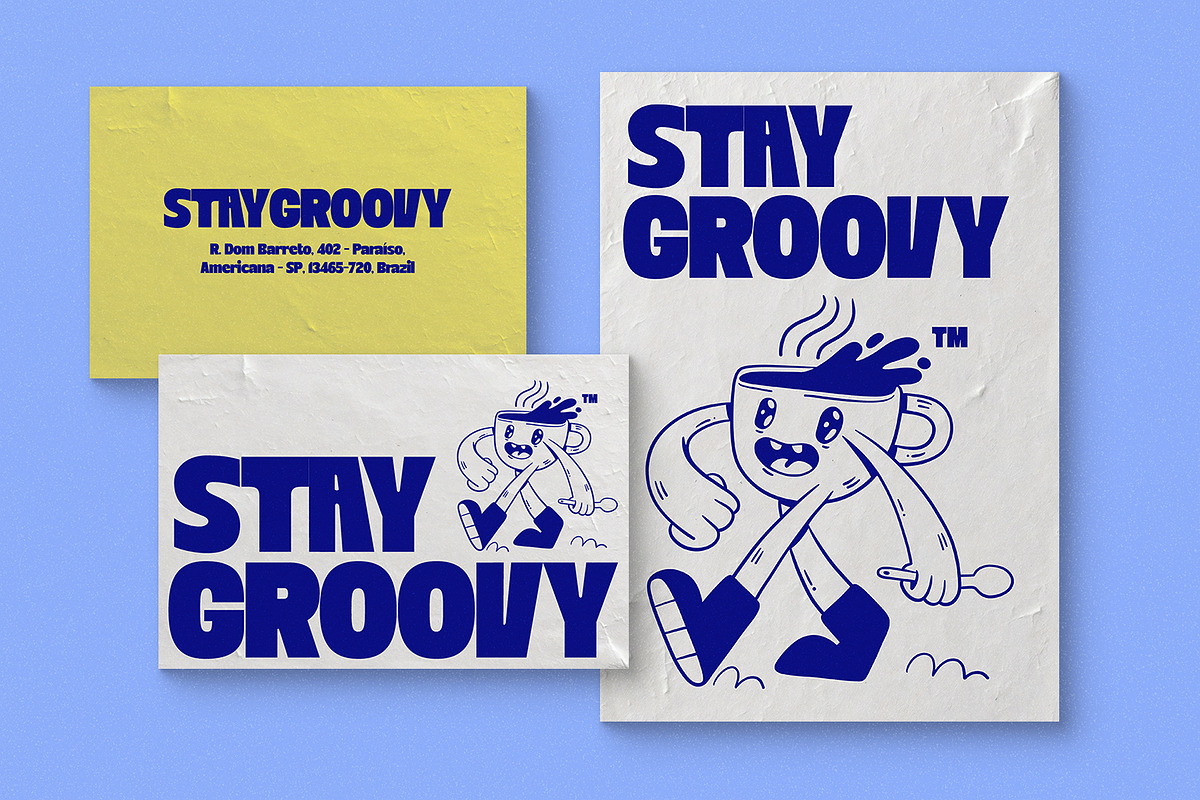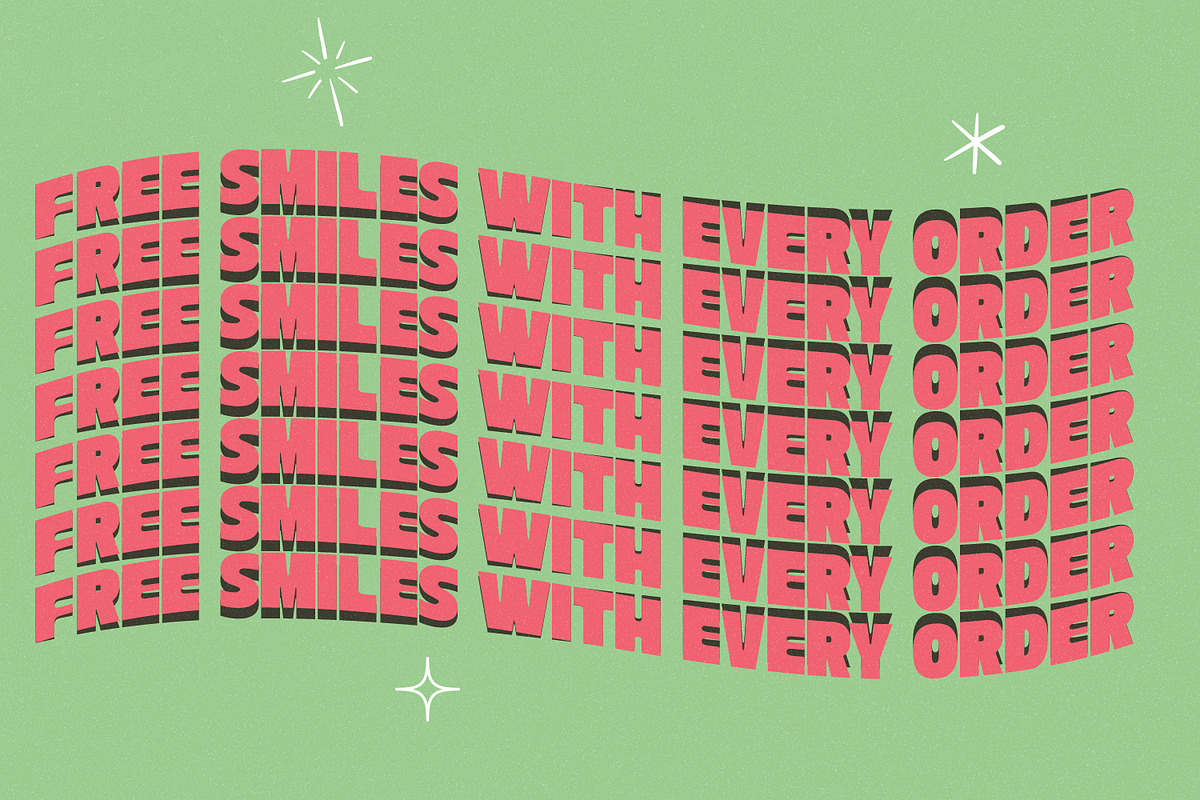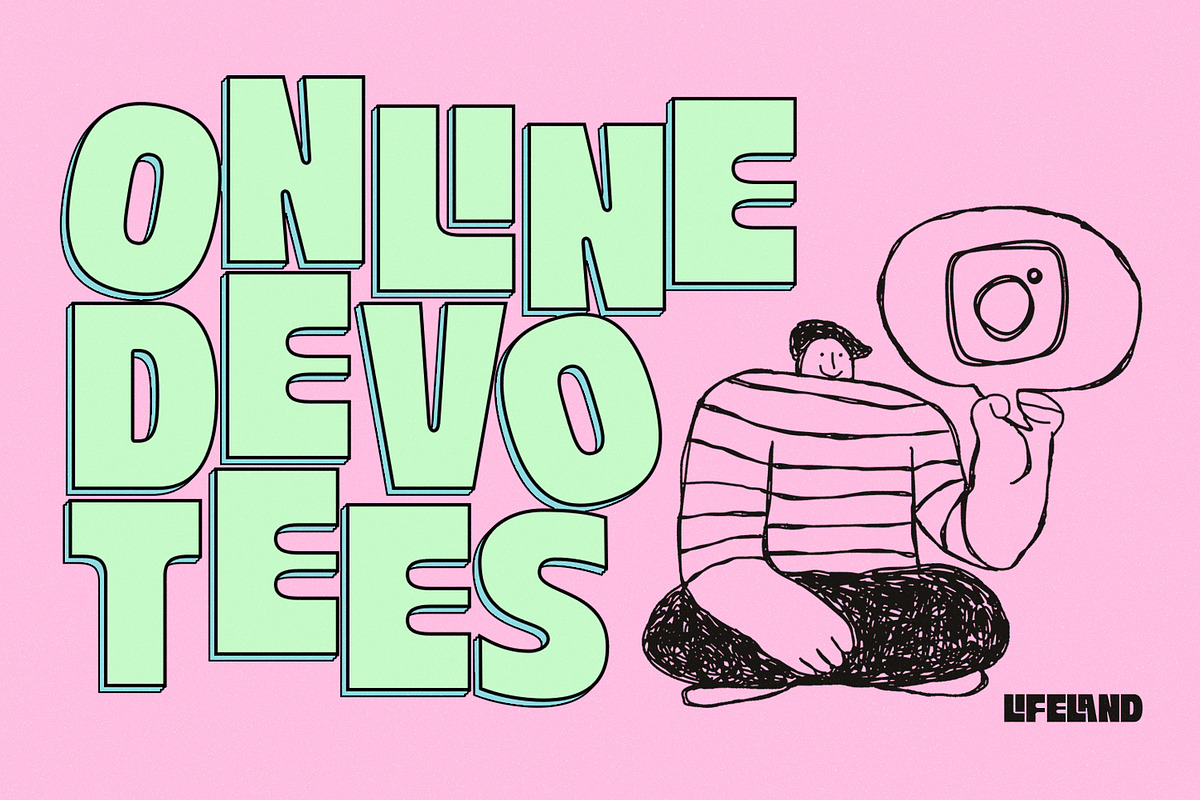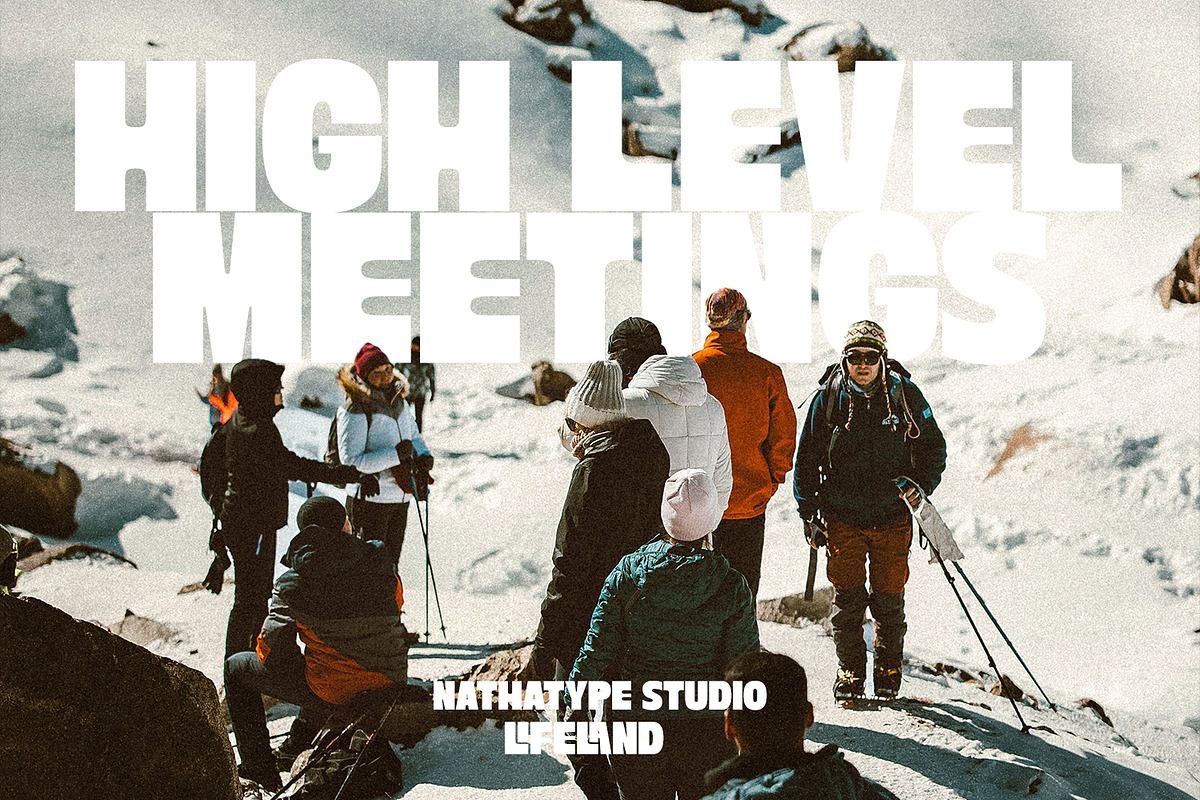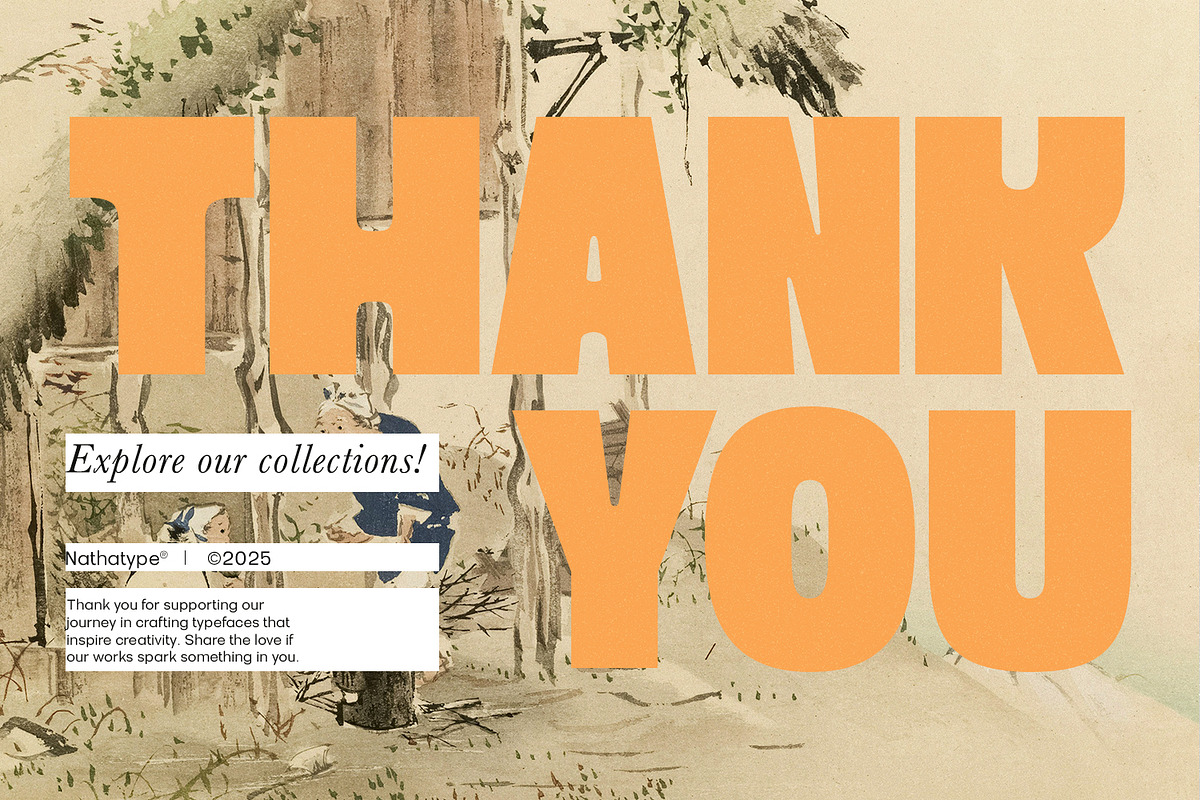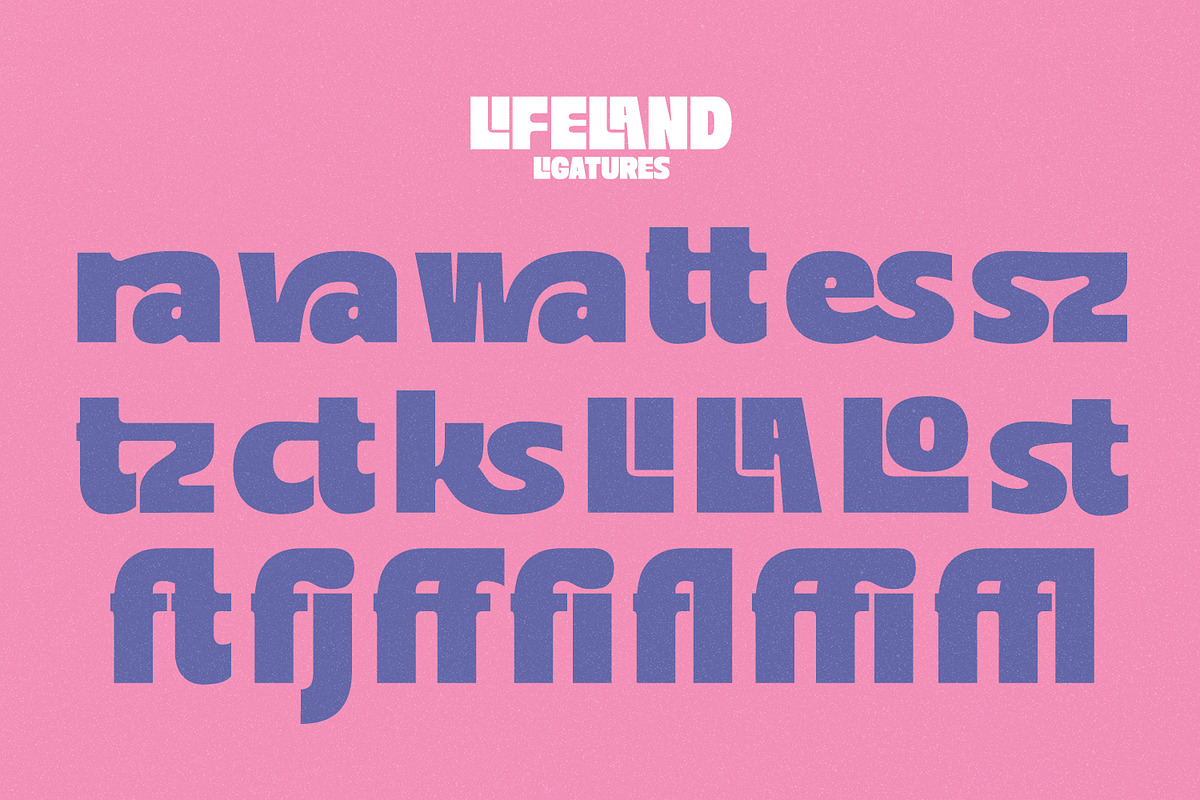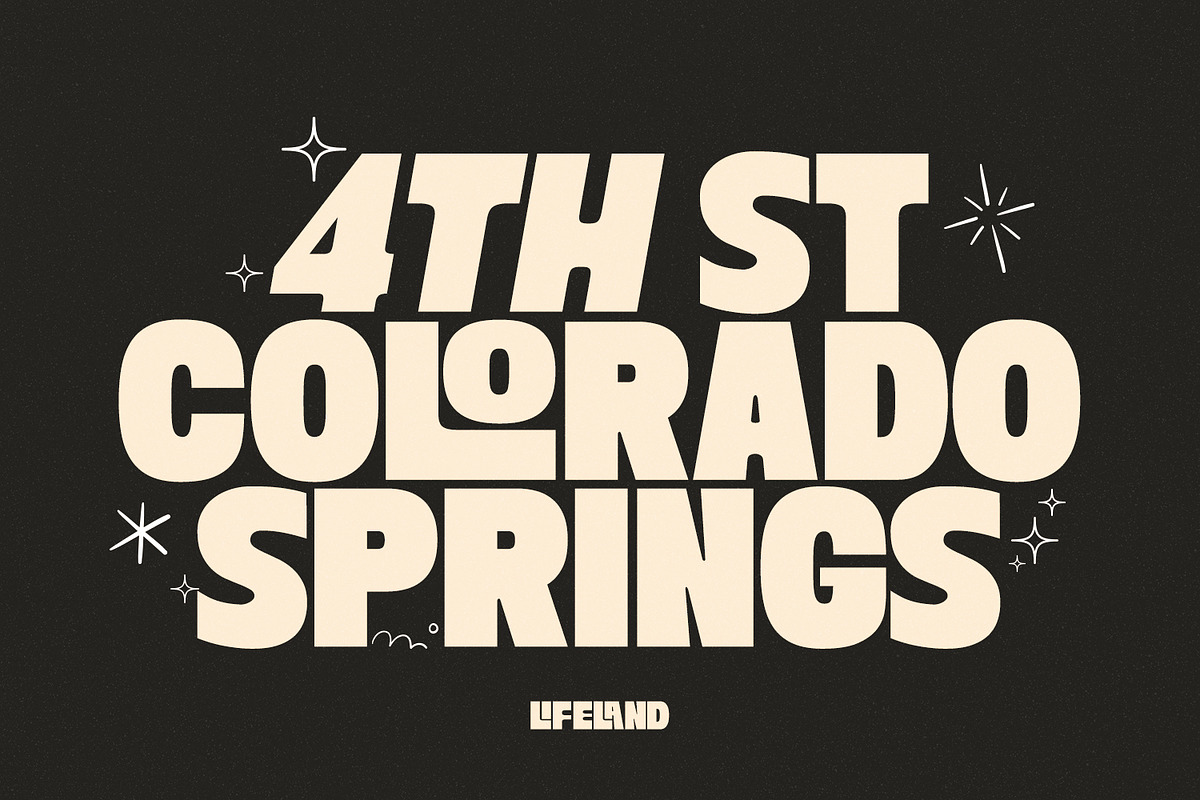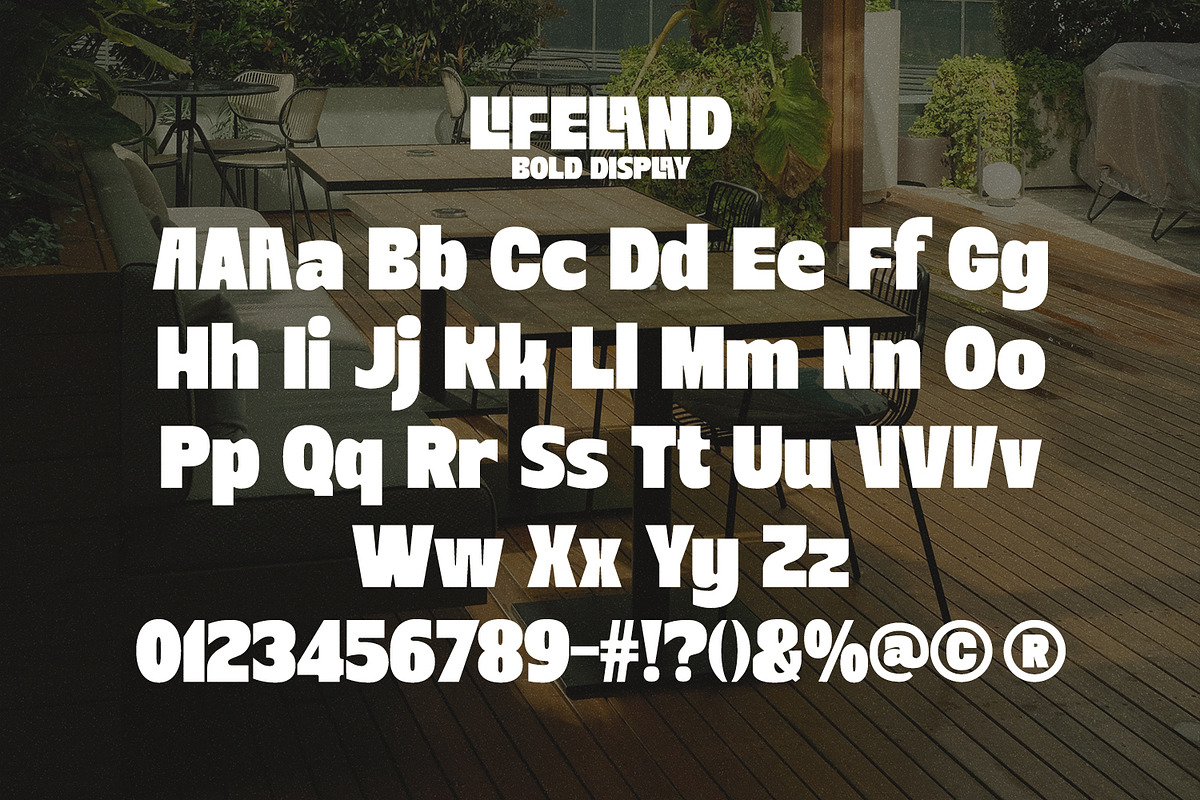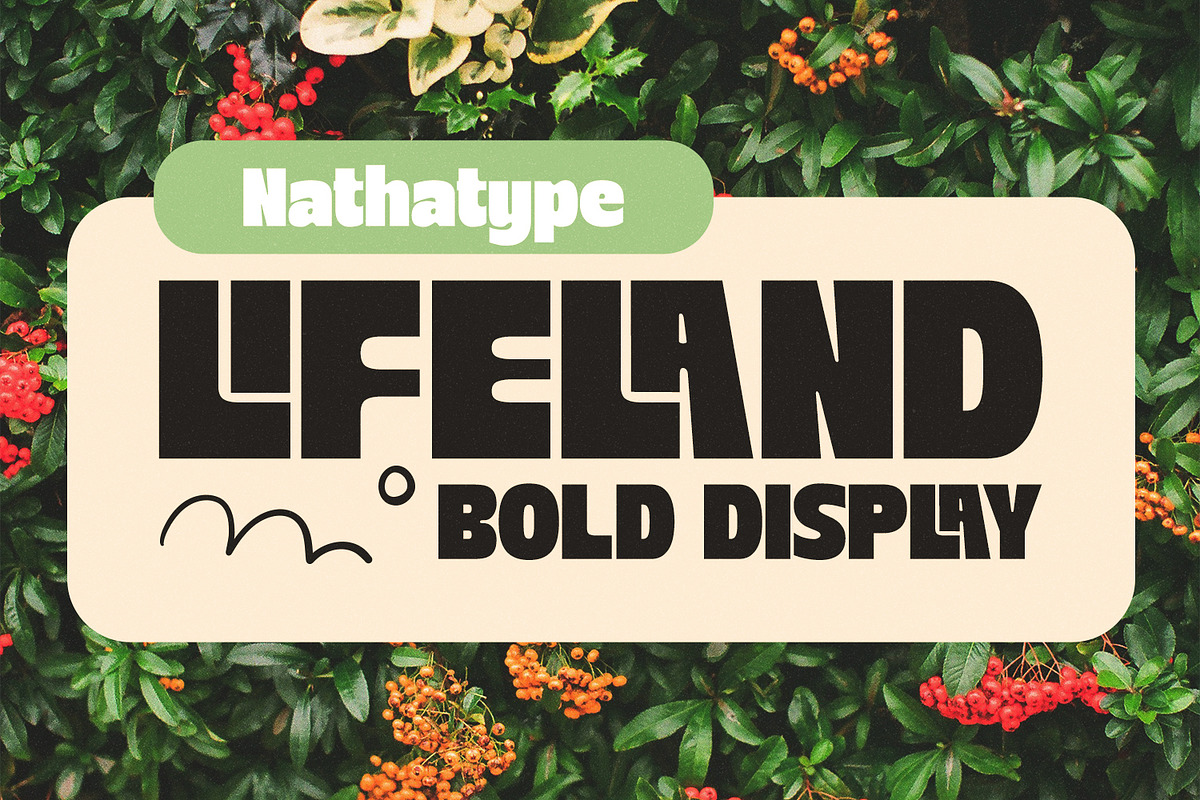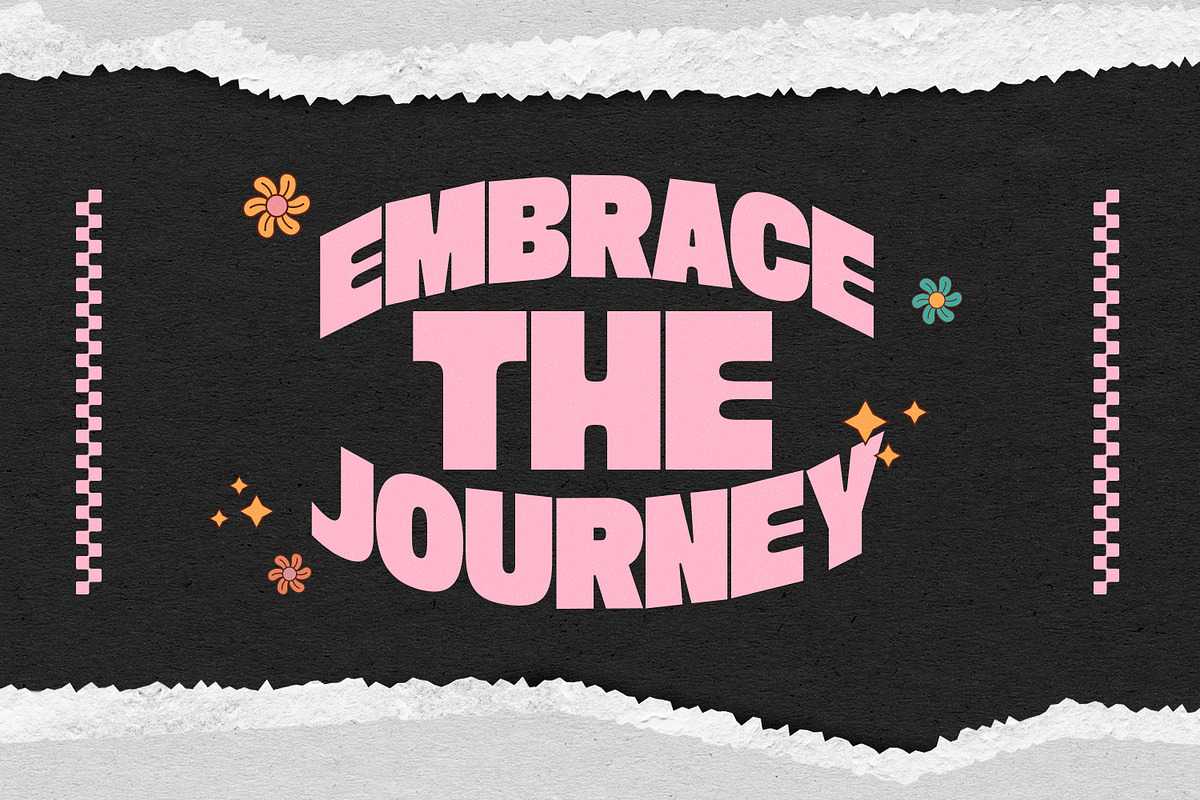
Lifeland
Lifeland is a powerful display font. The defining feature of Lifeland lies in its sharp angles and solid structure. Each letterform is carefully constructed to emphasize clean cuts and dynamic edges, giving the font a striking geometric personality. If you’re looking for a bold display typeface that commands attention while maintaining clarity and balance, Lifeland is the perfect choice. In addition, enjoy the features here.
Lifeland fits in logos, invitations, quotes, branding, posters, and many more designs. Find out more ways to use this font by taking a look at the font preview.